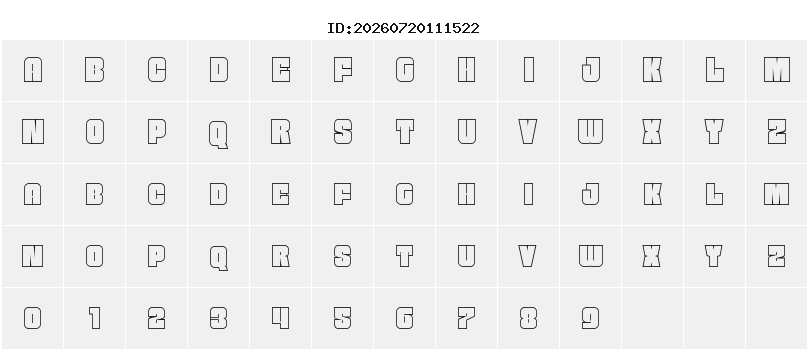
• Font Name: Funk Machine Outline
• Full Font Name: Funk Machine Outline
About Funk Machine Outline.ttf
Funk Machine Outline.ttf is a modern, elegant sans-serif font designed for ultimate readability and visual harmony. Perfect for branding, headlines, web design, and print materials.